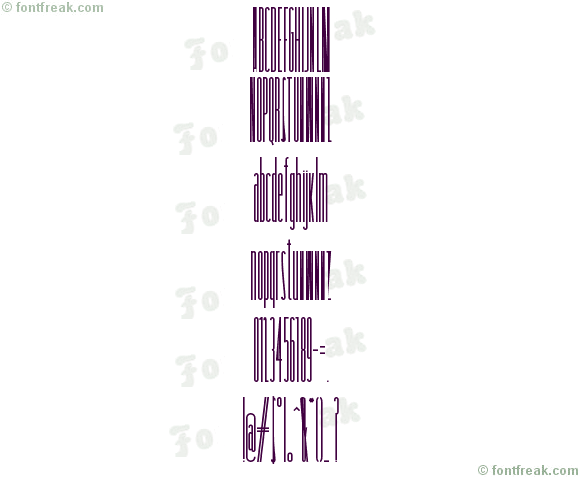
tallest
The "Tallest" font, crafted by Francesco Canovaro and released under the kmzero font foundry in 2009, is a distinctive display typeface that embodies a unique blend of modernity and elegance. This font is categorized as a decorative typeface, primarily designed to capture attention while maintaining readability. Its tall and slender letterforms feature a consistent stroke weight, providing a sleek appearance that is both contemporary and stylish. The spacing between the characters is meticulously balanced, enhancing legibility while adding an air of sophistication.
Visually, the Tallest font is characterized by its elongated ascenders and descenders, which create a striking verticality that stands out in any design context. The minimalist aesthetic is complemented by subtle decorative elements that add personality without overwhelming the viewer, making it an excellent choice for various creative projects.
The best use cases for the Tallest font include wedding invitations, where its elegant lines can evoke a sense of formality; movie posters that require a bold statement; restaurant menus aiming for a chic, modern vibe; fashion branding that seeks to convey a contemporary edge; and promotional materials for events that need to grab attention quickly. The versatility of this font makes it appealing to a wide range of applications.